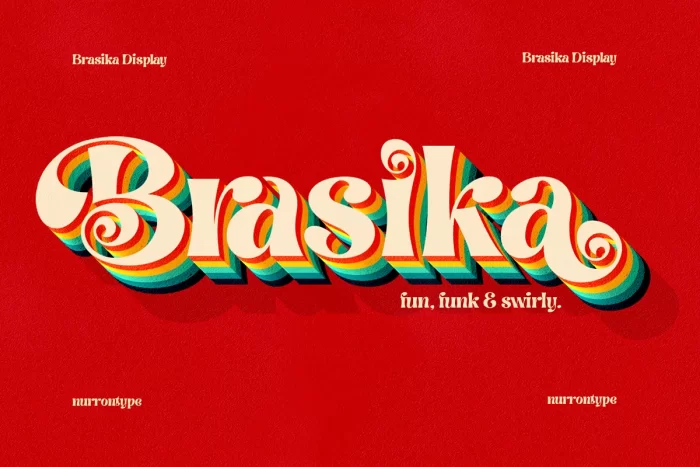
Brasika is a fun, funk and swirly display font. You can put me in your logo project. Or your magazine title. In your Christmas greetings card, wedding invitation, perhaps use me in your Instagram feeds, Youtube title, and many more, you name it.